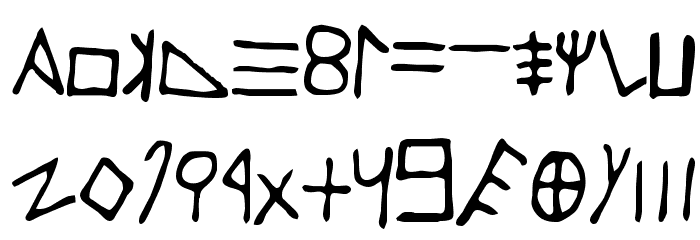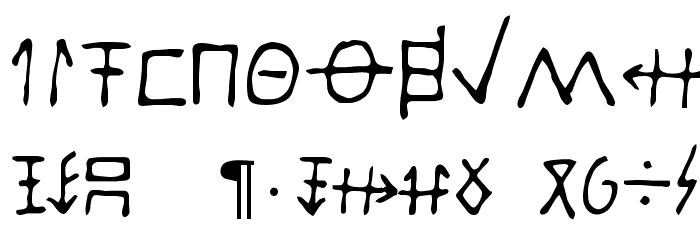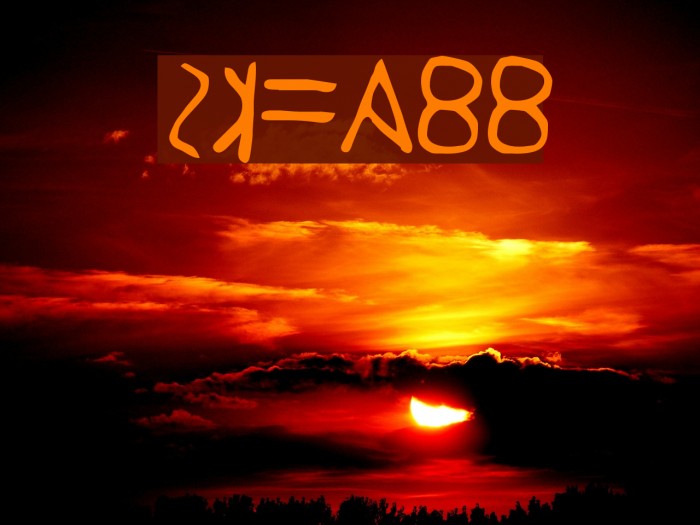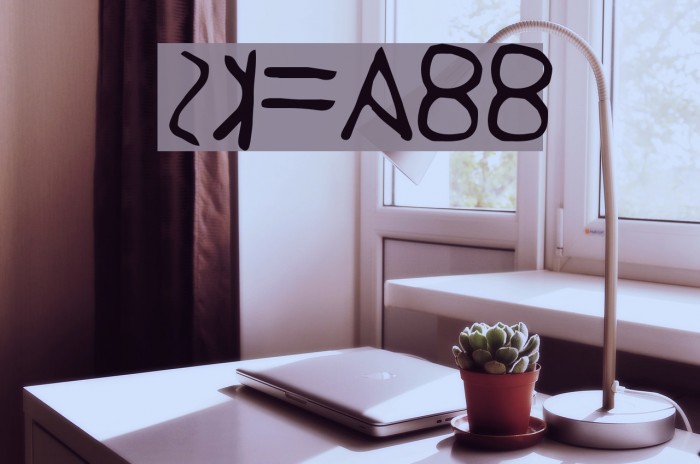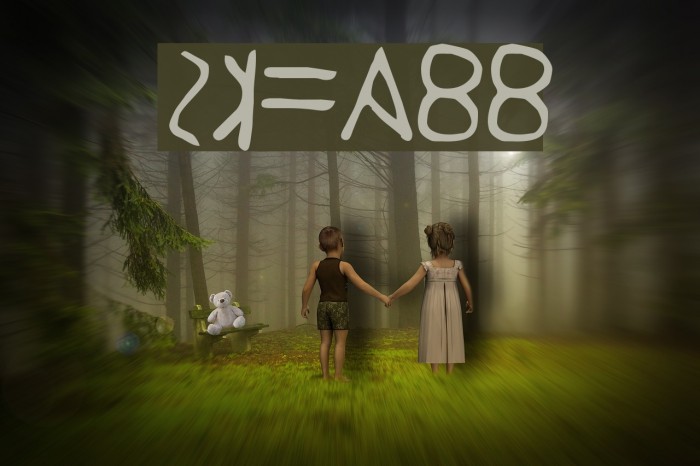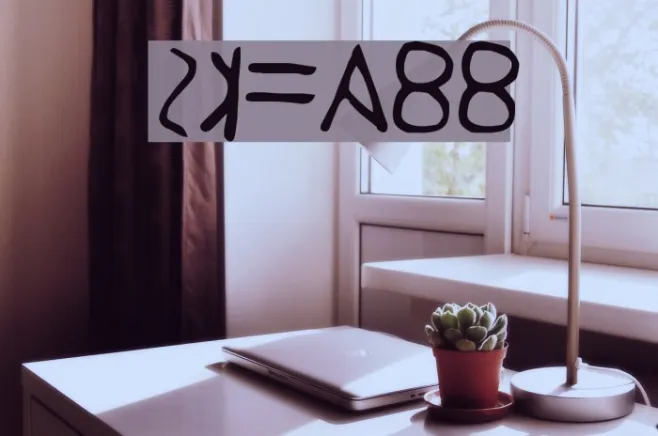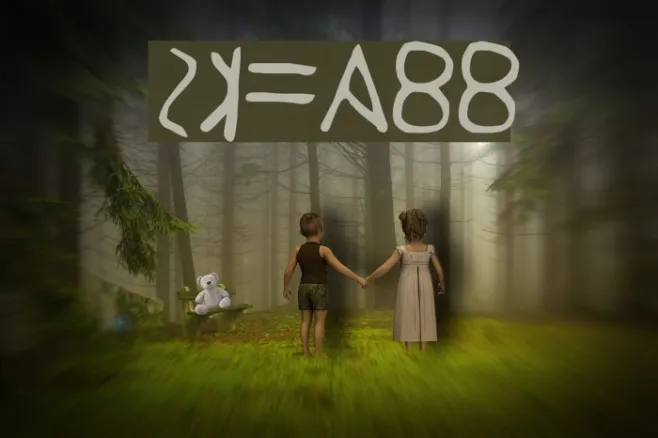
Schaff Font
This font features a unique, ancient script-inspired design with characters that resemble runes or hieroglyphs. The strokes are uneven and organic, giving it a hand-drawn appearance. Each character has a distinct, angular form, with some incorporating geometric shapes like circles and triangles. The overall style is reminiscent of ancient writing systems, making it ideal for projects that require a historical or mystical aesthetic. The font's irregularity and distinctive shapes make it stand out, providing a strong visual impact.
An ancient script-inspired font with angular, hand-drawn characters.
- Proposed Projects: Ideal for fantasy book covers, historical themed posters, or video game graphics.
- Overall Style: Vintage
- Use Case: Logos, Headlines